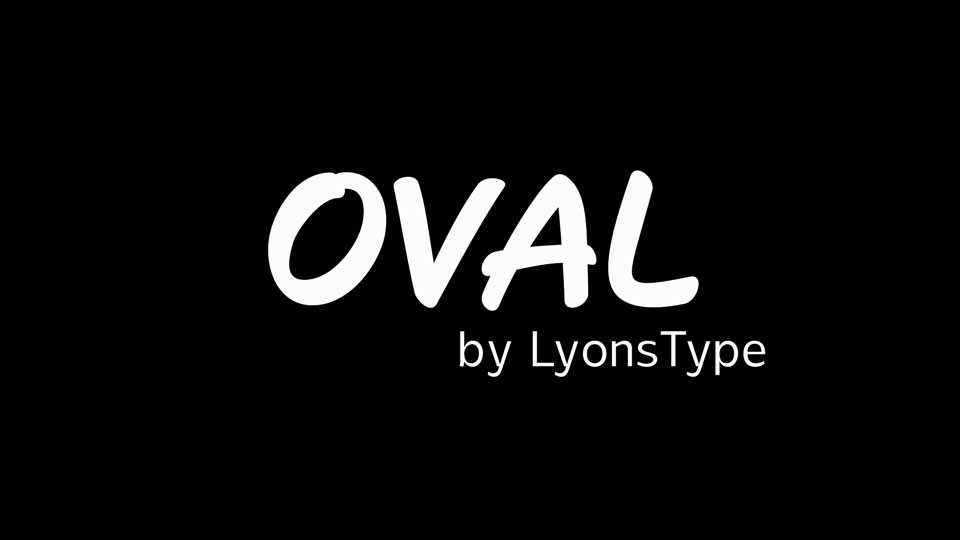
Download Oval font, a casual, hand-drawn marker typeface that captures the spontaneity and boldness of real marker strokes with a relaxed appearance.
Designer: LyonsType